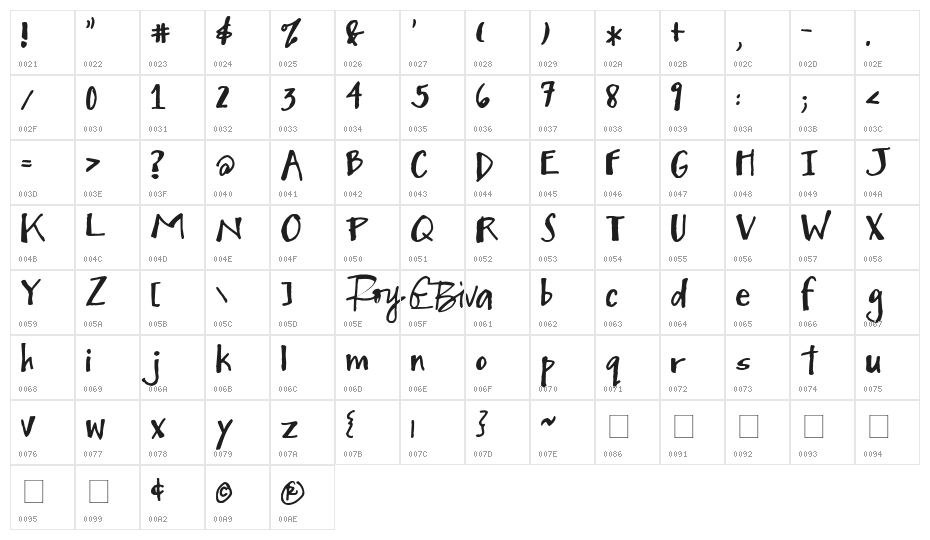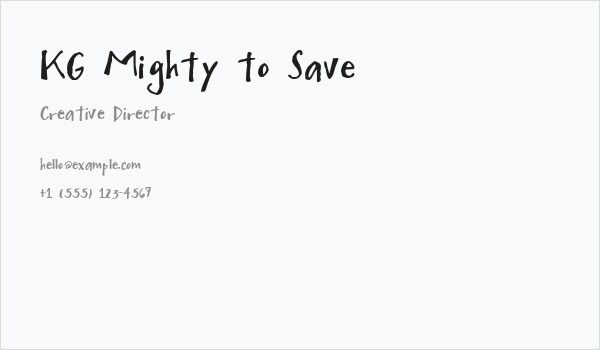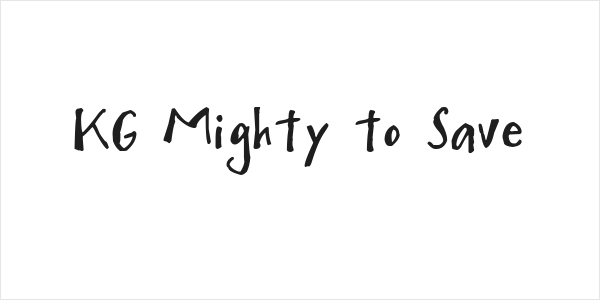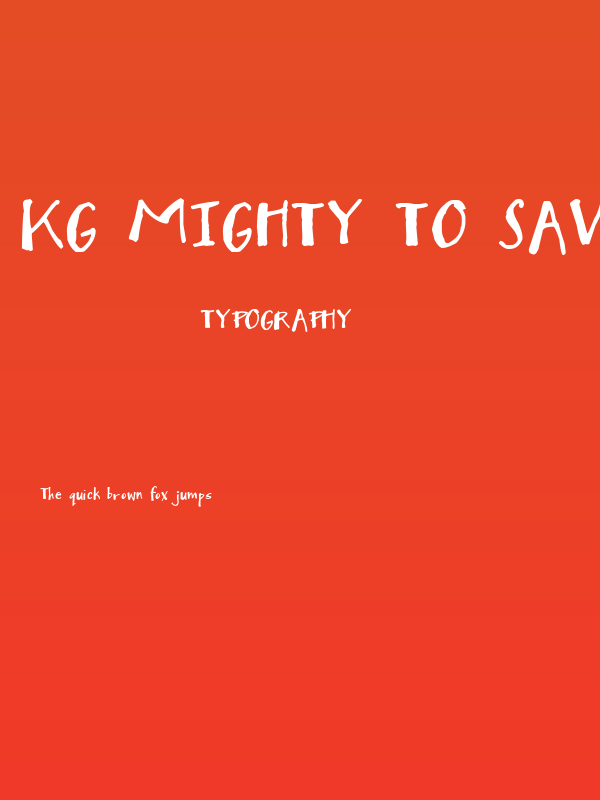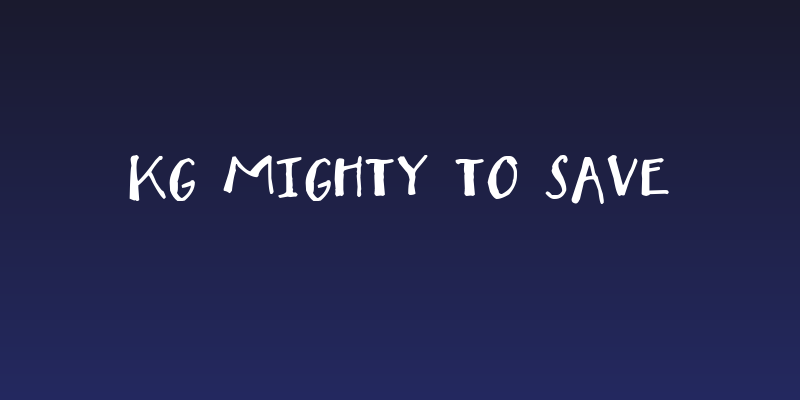
KG Mighty to Save Font
KG Mighty to Save Description
This font exhibits a playful and energetic handwritten style, characterized by its bold and slightly irregular strokes. The uppercase letters are tall and slightly narrow, with a casual, informal appearance. The lowercase letters maintain a consistent flow, with some letters featuring unique, whimsical curves. Numbers and special characters follow the same lively aesthetic, adding to the font's overall charm. The font's design suggests a sense of movement and spontaneity, making it ideal for projects that require a personal touch.
| Proposed Projects | Ideal for greeting cards, children's books, playful branding, and social media graphics. |